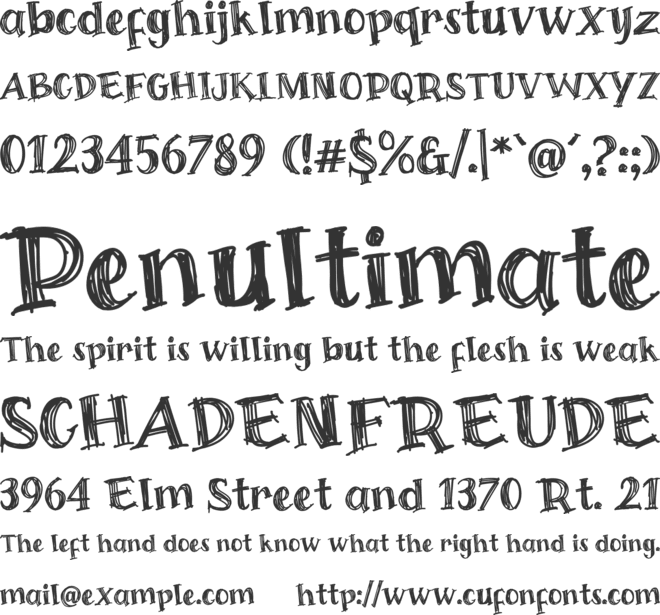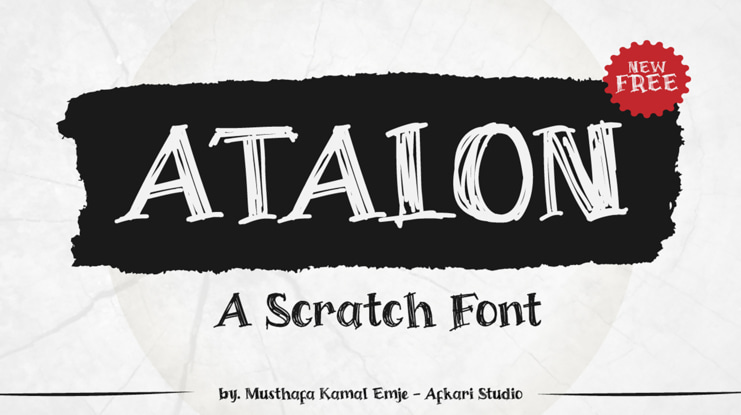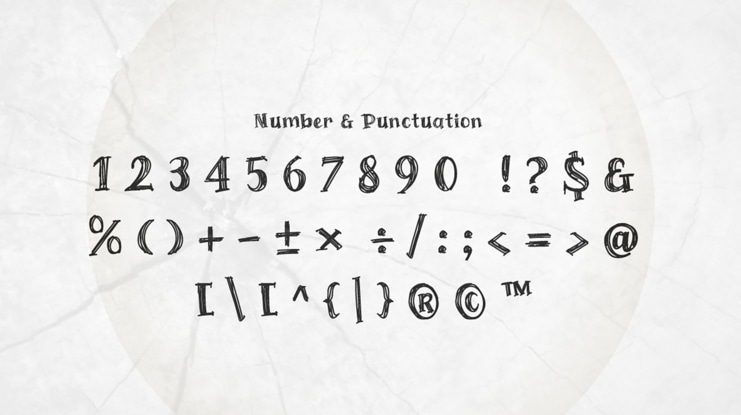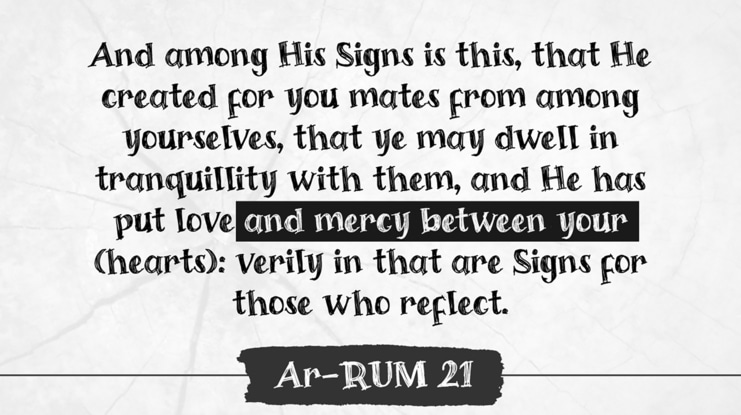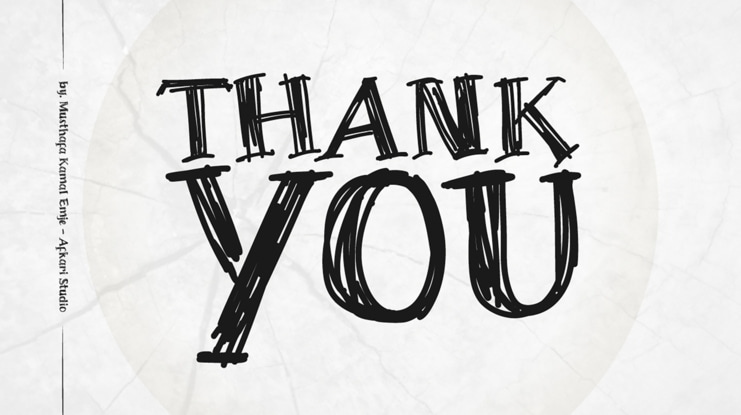
Atalon - A Scratched Font
Musthafa Kamal Emje - Afkari Studio
Atalon A Scratch ia a free font from Afkari Studio made with frantically handwritten typeface. Written loosely and with special balanced look as authentic handwriting font. Atalon A Scratch Perfect to use in all your projects that call for a natural handwritten, easy legible hand-drawn font.
Atalon A Scratch Free Font